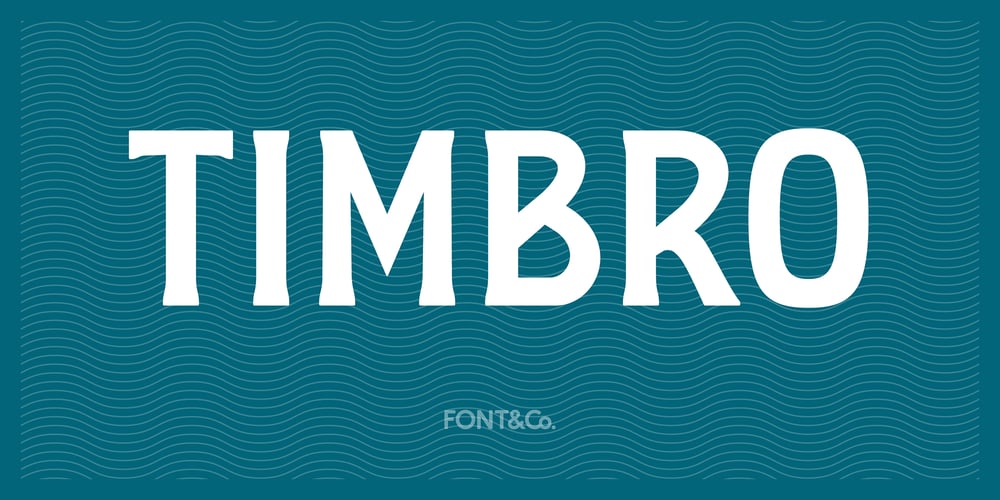
Timbro Font Family was designed by Francesco Gianesini and published by Font&Co.. Timbro contains 1 styles and family package options. Timbro – Italian for ’rubber stamp’ – is an all-caps, decorative display typeface based on lettering from old Land Registry records.